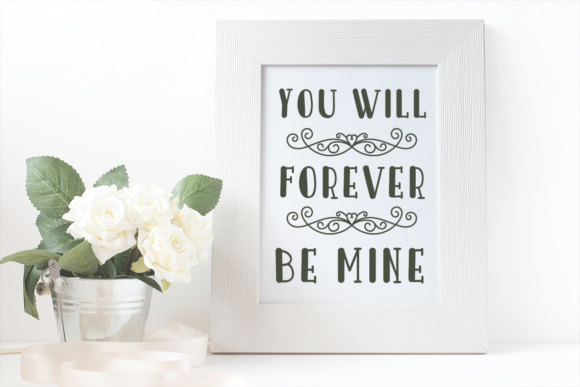
The Dividers Dingbat font is a font that comes with 26 stylish uppercase letters, and 26 lowercase dingbats.
It’s the perfect font for adding playful embellishments to your design projects.